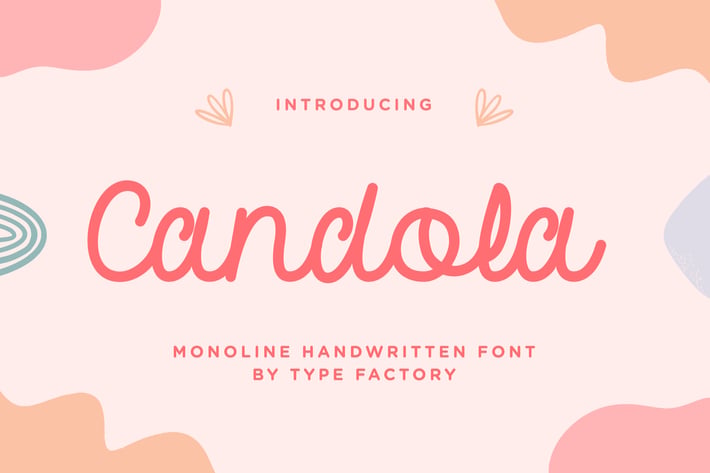
Candola – Monoline Handwritten Font
Candola is a monoline script font.
It maintains its classy calligraphic influences while feeling playful and fresh.
This versatility will appeal to a wide range of crafty ideas, from letterheads and titles, to stationery.
– Lowercase
– Ligature
– Alternate
– Multilingual Support